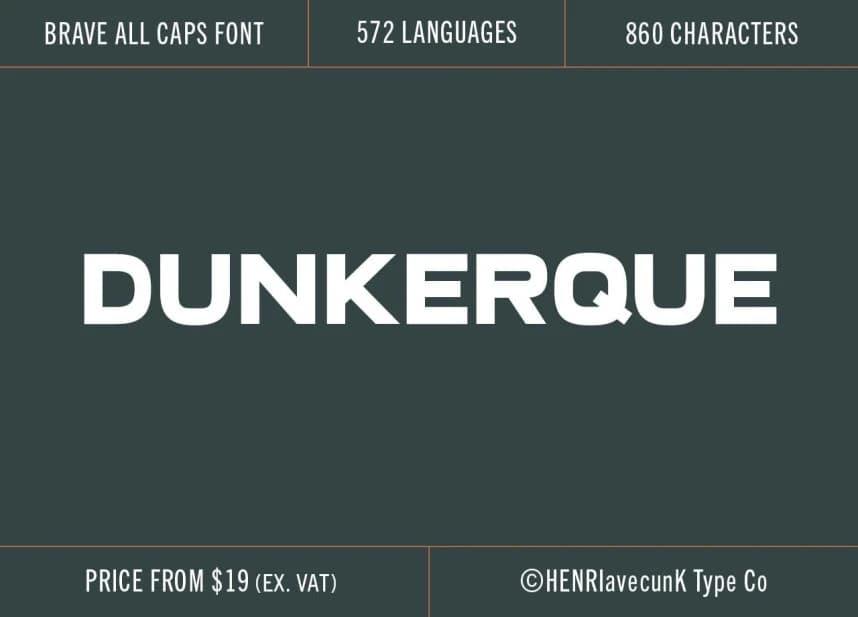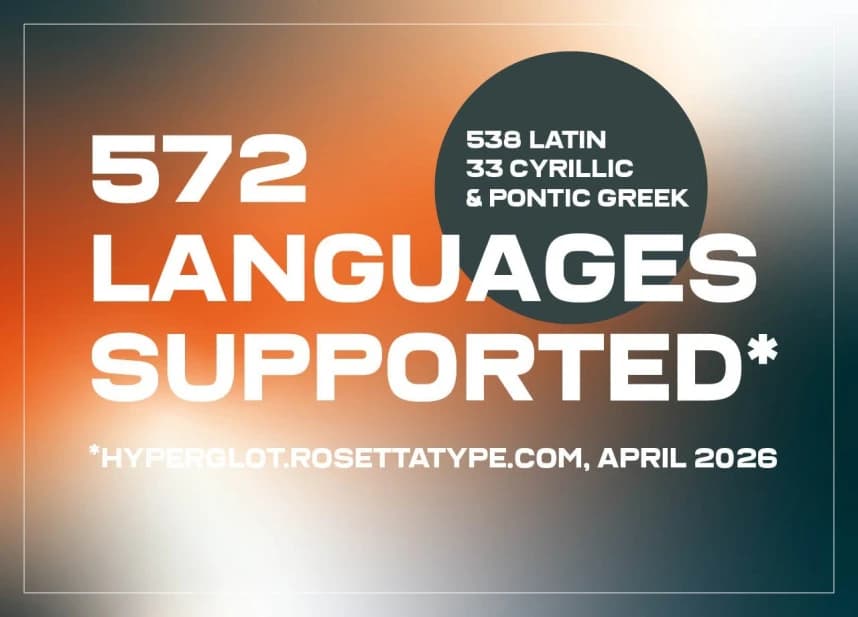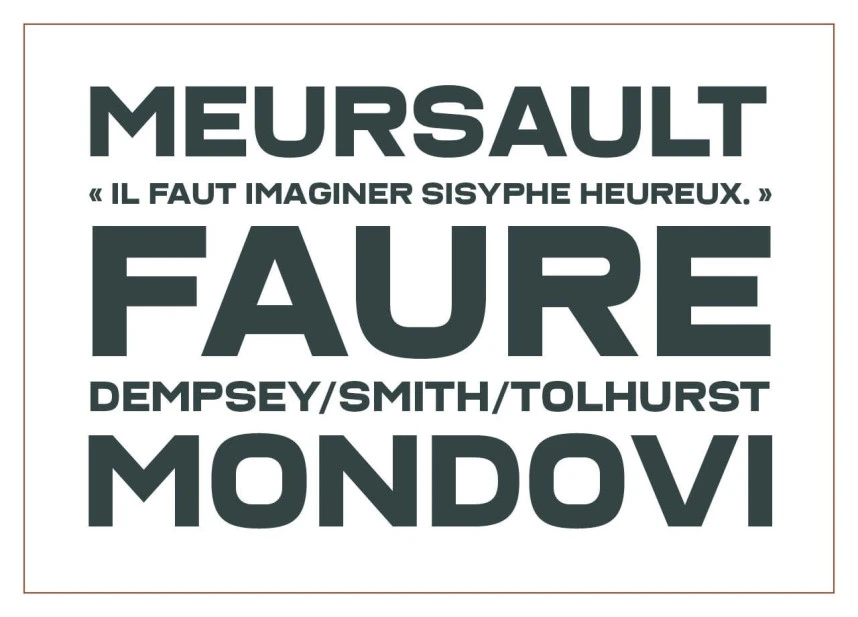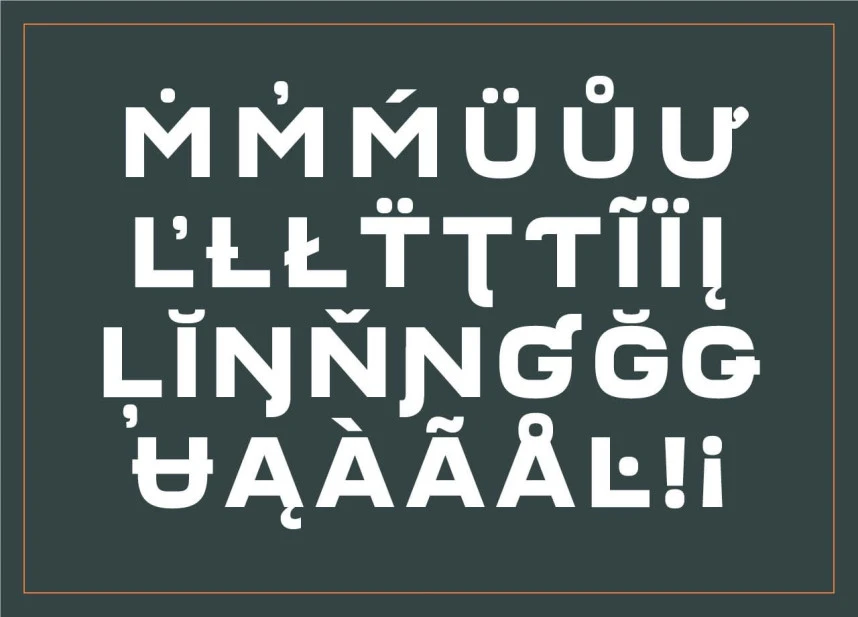
Dunkerque Font
Dunkerque Font is an all-caps typeface created to deliver a bold and memorable impact. Its strong, structured letterforms express confidence and force, making it ideal for headlines, logos, and branding that need to stand out.